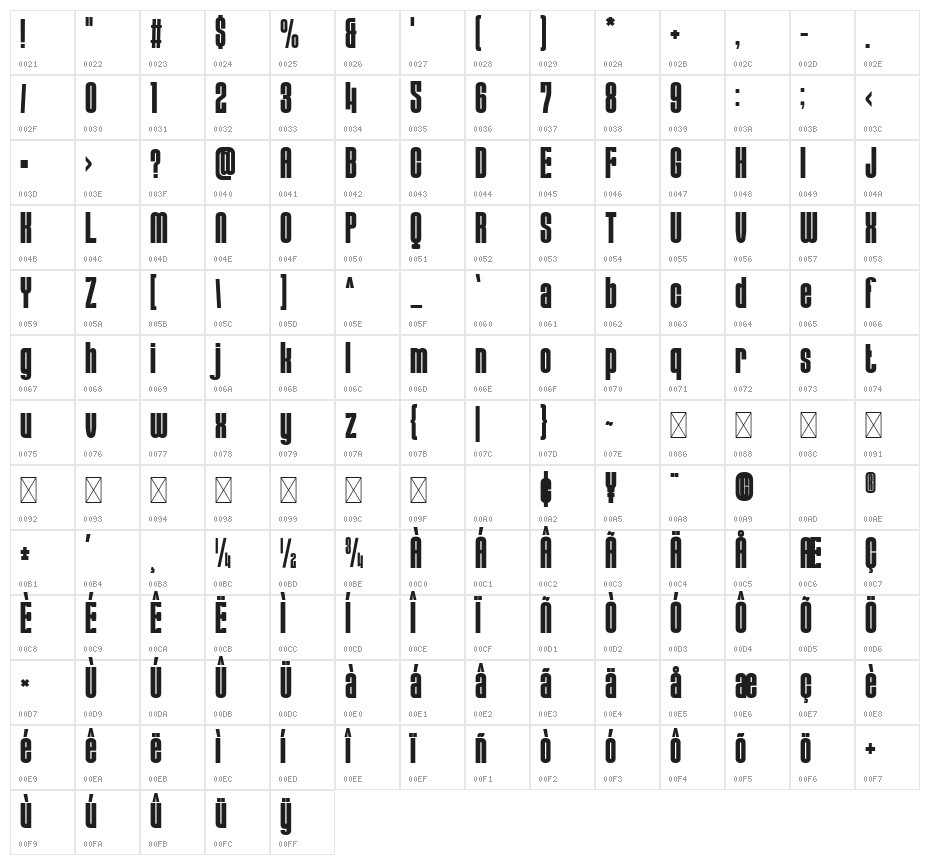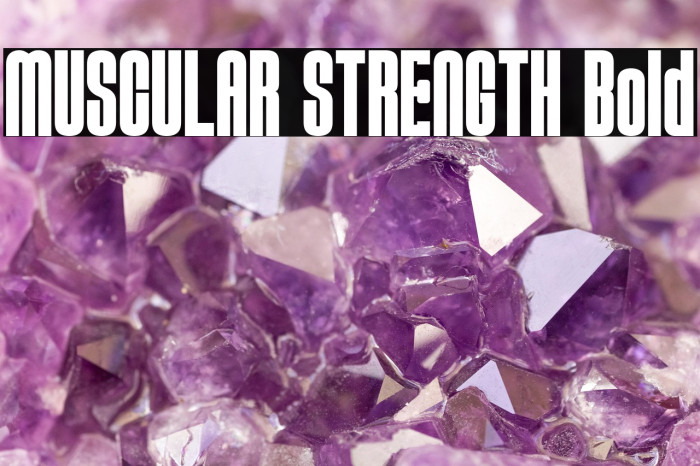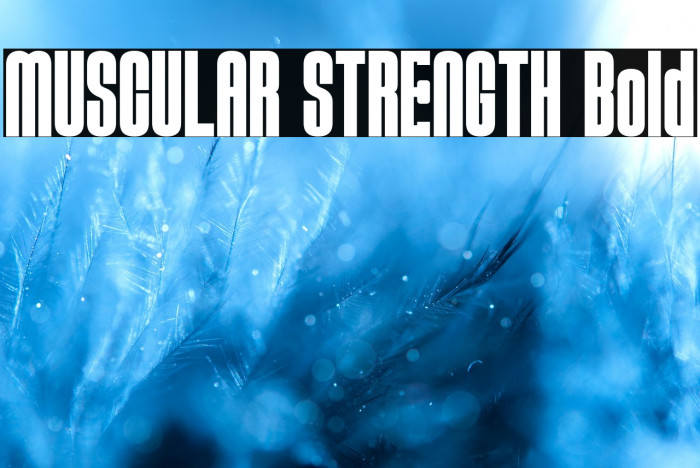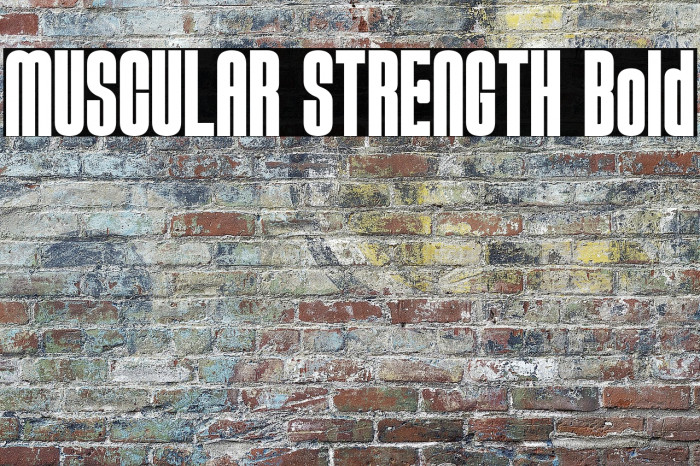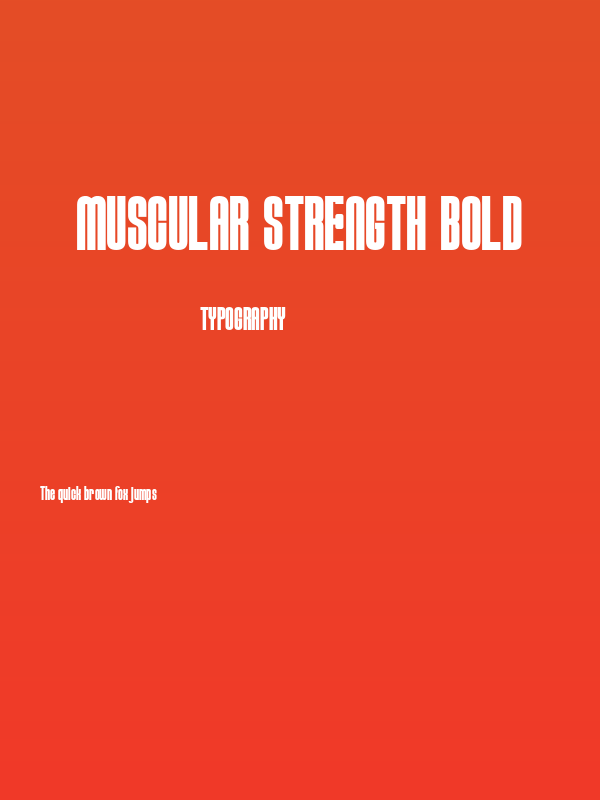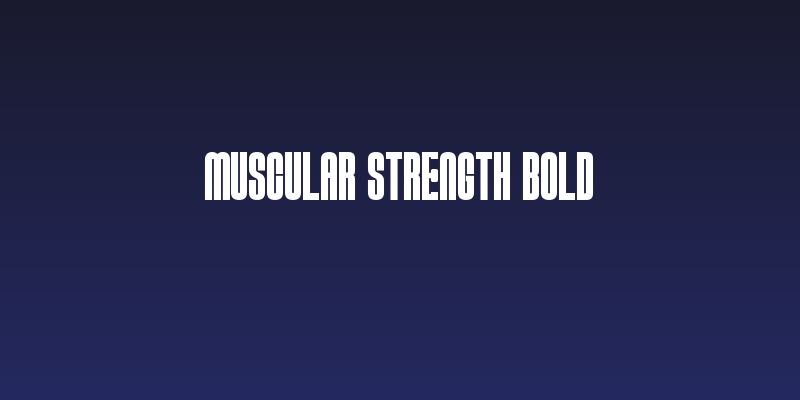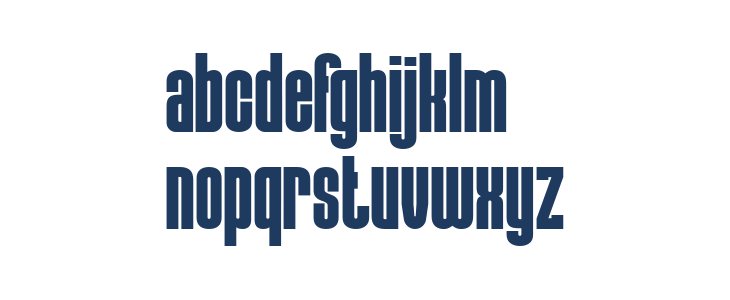
MUSCULAR STRENGTH Bold Font
MUSCULAR STRENGTH Bold Description
This font features a bold and impactful design with strong vertical lines and a condensed width. The characters are tightly spaced, creating a powerful and cohesive look. The uppercase and lowercase letters maintain a consistent height, emphasizing the font's robust and muscular appearance. The numerals and special characters are designed to match the boldness of the alphabet, making it suitable for attention-grabbing headlines and logos. The overall style is modern and assertive, ideal for projects that require a strong visual presence.
| Proposed Projects | Ideal for headlines, posters, logos, and branding materials that require a strong and impactful visual presence. |